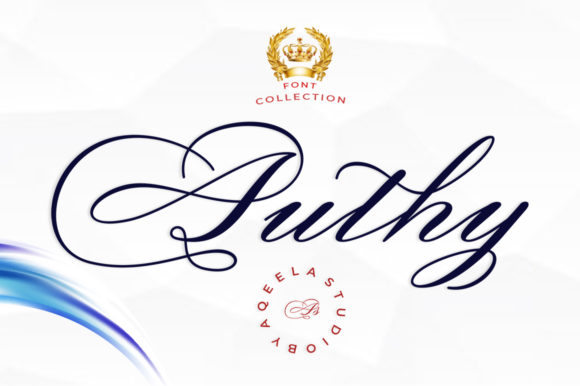
The Elegant Authy Font: A Designer’s New Best Friend
I’ll never forget the time I was working on a wedding invitation project, and my client asked for a font that exuded elegance and sophistication. I scoured the internet, tried out countless fonts, but nothing seemed quite right. That was until I stumbled upon the Authy font. ✨ It was love at first sight! The beautiful calligraphy, the smooth lines, and the perfect blend of classic and modern styles. In this article, I’ll share my experience with the Authy font, its features, and how to make the most of it in your designs.
Authy Font: A Personal Review
- ✨ Elegant and sophisticated design, perfect for formal projects
- ✅ Amazing alternates and stylistic sets to add variety to your text
- 💃 Mixture of copperplate calligraphy and hand-lettering styles for a unique look
- 📚 Classic style that’s perfect for invitations, labels, menus, logos, and more
While the Authy font is amazing, there are a few things to keep in mind: 🤔
- ⚠️ Some users may find the font a bit too ornate for certain projects
- ⚠️ May not be suitable for body text due to its elegant, cursive nature
The Story Behind Authy Font
The Authy font was designed with elegance and sophistication in mind. Its creator wanted to craft a font that would convey a sense of luxury and refinement, while still being approachable and feminine. The result is a beautiful, unique font that’s perfect for designers, crafters, and creative hobbyists looking to add a touch of class to their projects.
| Font Name | Authy Font |
| Author | Aqeela Studio |
Q: What type of projects is the Authy font best suited for?
A: The Authy font is perfect for formal projects, such as invitations, labels, menus, logos, wedding cards, and more.